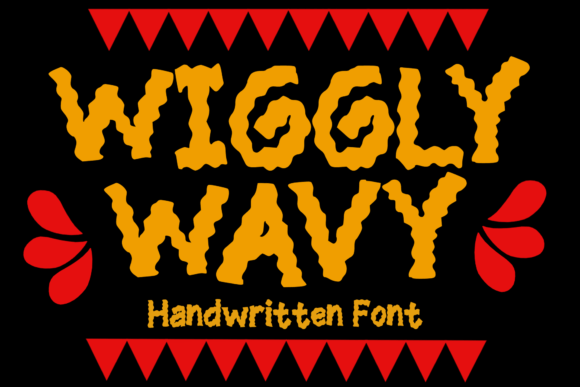
**Wiggly Wavy Font: A Whimsical Delight for Creative Expression**
Embark on an artistic journey with Wiggly Wavy, a display font that embodies joy, playfulness, and boundless imagination. Inspired by the irresistible shapes of french fries, Wiggly Wavy dances across your designs with a carefree spirit, adding a touch of whimsy and delight to every project.
Unleash your creativity with Wiggly Wavy, a font that knows no bounds. Whether you're designing t-shirts to capture the vibrant energy of childhood, crafting kids' book designs to transport young readers into magical worlds, or creating restaurant menus that exude a welcoming and playful ambiance, Wiggly Wavy is your perfect companion.
Adorn greeting cards with heartfelt messages, let stickers burst with personality, and transform posters into captivating works of art. Wiggly Wavy's versatility knows no limits, making it the ideal choice for adding a casual yet captivating touch to any project.
**A World of Possibilities Awaits**
With Wiggly Wavy, the possibilities are endless. Dive into the world of graphic design and let your imagination run wild. Create logos that radiate joy, design brochures that dance with energy, and craft social media posts that spark engagement and smiles.
Step into the realm of branding and watch as Wiggly Wavy elevates your brand identity to new heights. Its playful charm and unique personality will leave a lasting impression on your audience, fostering a connection that resonates with their hearts.
**Embrace the Joy of Wiggly Wavy**
Wiggly Wavy is more than just a font; it's an experience. It's an invitation to let loose, embrace your creativity, and infuse your designs with a delightful sense of playfulness. With its captivating curves and cheerful demeanor, Wiggly Wavy transforms the ordinary into the extraordinary, leaving a trail of smiles and good vibes wherever it goes.
So, dive into the world of Wiggly Wavy today and let your imagination soar. Discover the endless possibilities that await and create designs that radiate joy, spark creativity, and leave an unforgettable impression on all who encounter them.